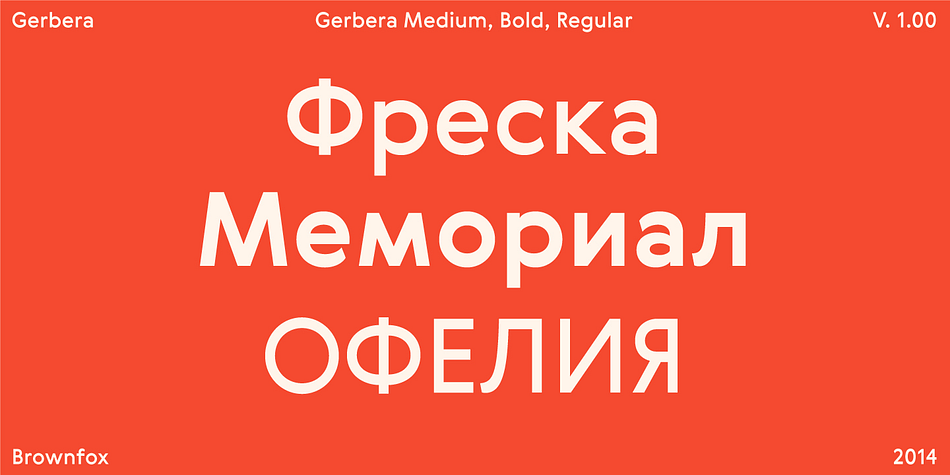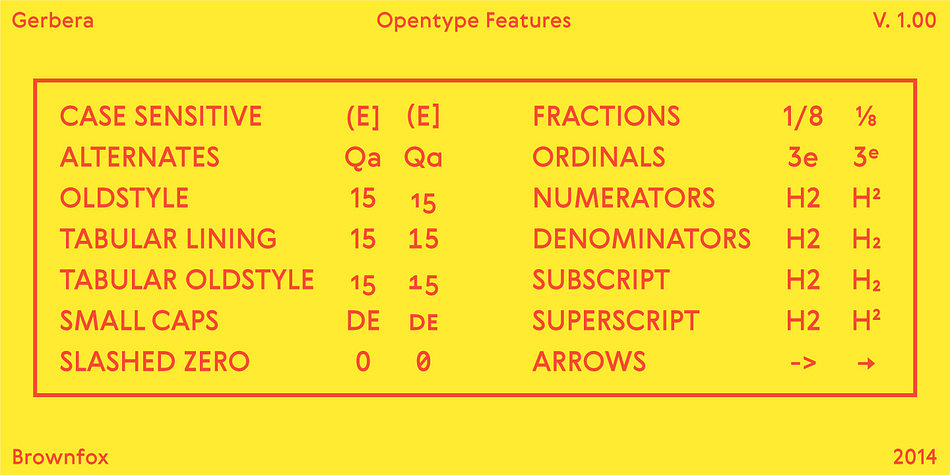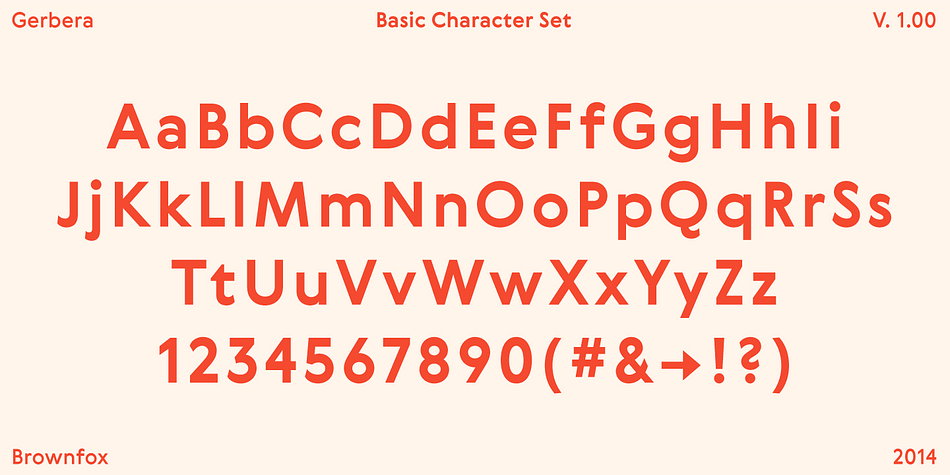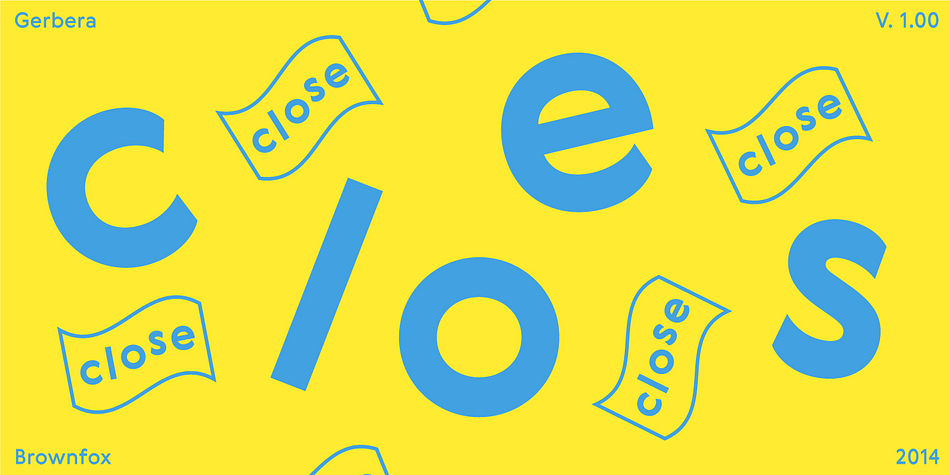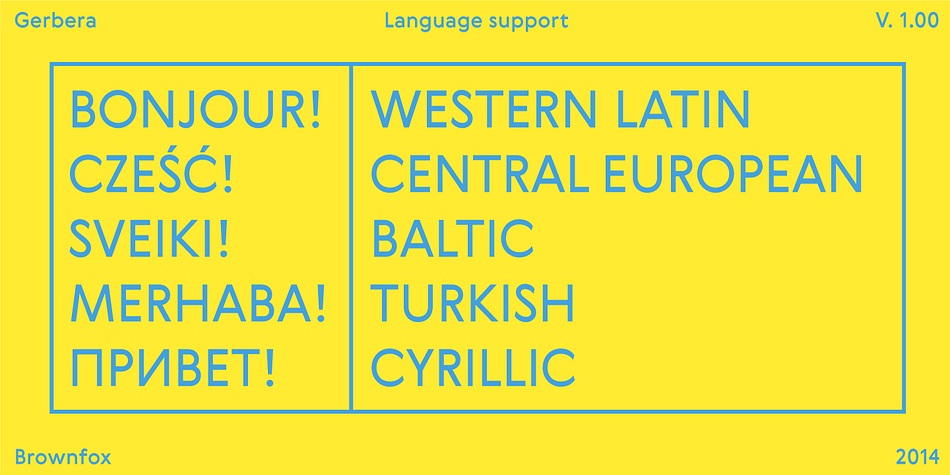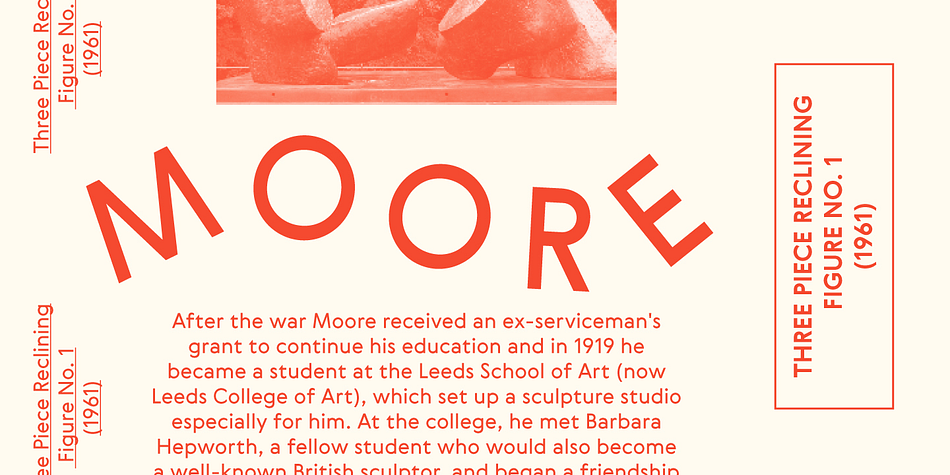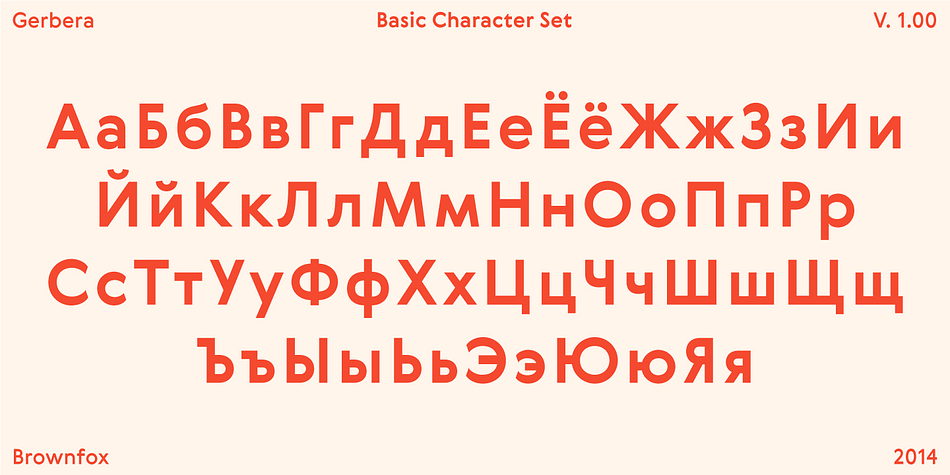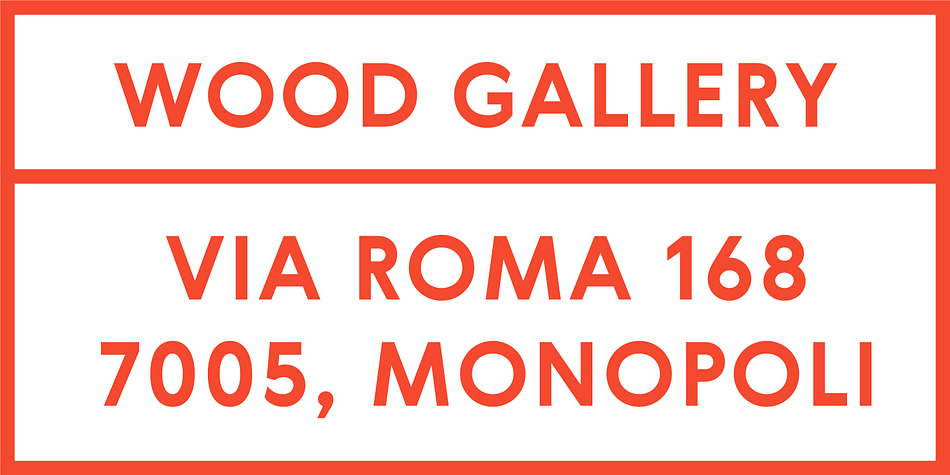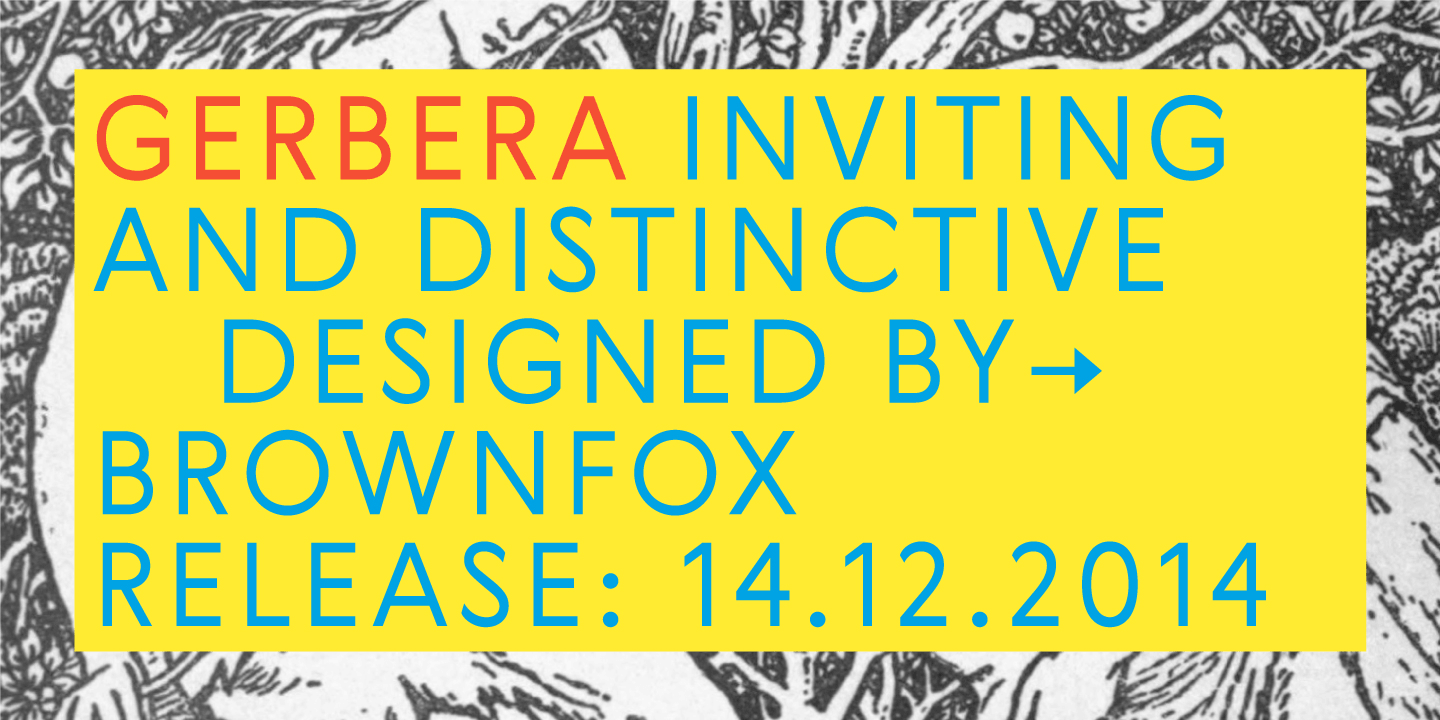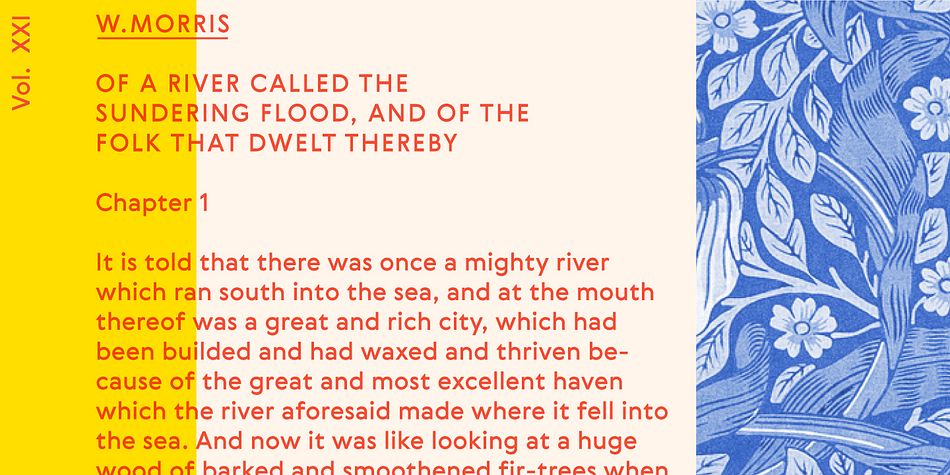
Gerbera is a sans serif font family. This typeface has five styles and was published by Brownfox.
Gerbera is a new sans-serif with a distinct personality that fuses geometric and organic elements. It is at once hip and quaint, clear yet idiosyncratic, restrained but sensual. Its deliberately varied classical capital proportions and geometric structure are balanced by slightly reversed stress and pinched terminals on curved strokes.
This versatile font comes in five weights and offers a variety of Open Type features, including small caps, alternate characters and punctuation, five sets of figures, and CE, Baltic, and Cyrillic support.